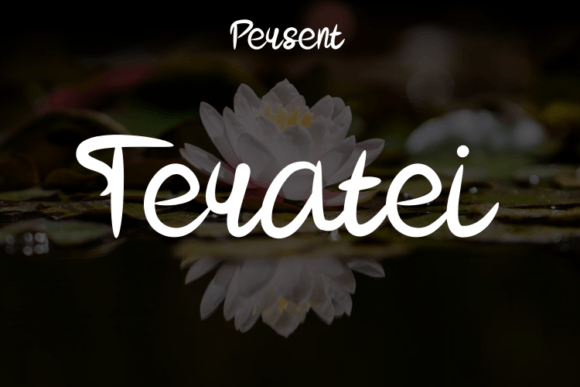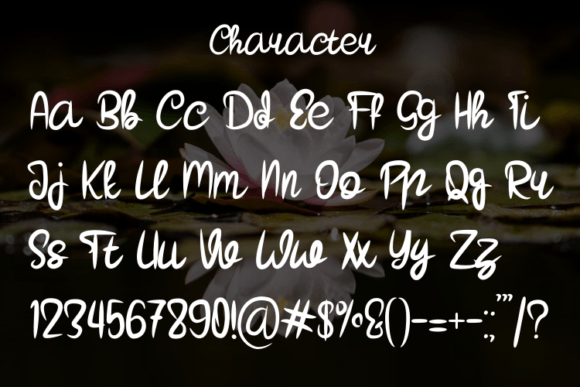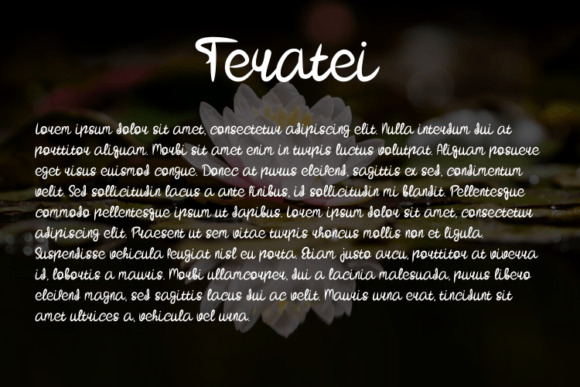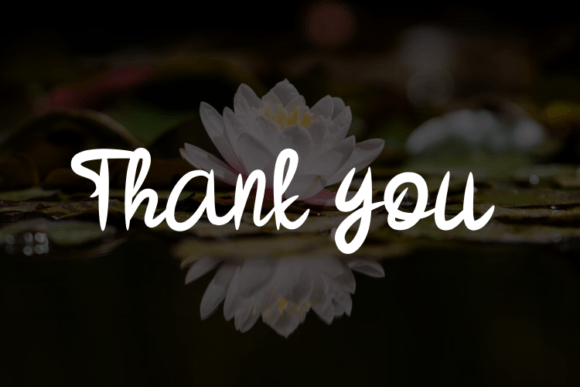
Teratei Font
About Teratei Font
Teratei is a stunning handwritten font that possesses a unique style and modern allure. Tailored for elegance and luxury, this font is a perfect choice for a range of design projects, including sophisticated logos, captivating book or movie titles, high-end fashion brands, chic magazines, clothing labels, lettering, quotes, and more.
The beauty of Teratei lies in its ability to bring a contemporary and luxurious touch to your designs. Whether you’re crafting a logo for a high-end brand or designing a title for a fashion-forward publication, Teratei’s unique style enhances the overall aesthetic with a modern sensibility.
The versatility of Teratei extends across various applications, making it suitable for both digital and print media. Its handwritten charm, coupled with a modern look, allows it to seamlessly integrate into diverse design contexts, adding a layer of sophistication to your creative projects.
In summary, Teratei is not just a font; it’s a design asset that embodies elegance and modernity. Let Teratei be the choice that elevates your logos, titles, and other design elements to a level of refined luxury, making your creations stand out with a touch of sophistication.